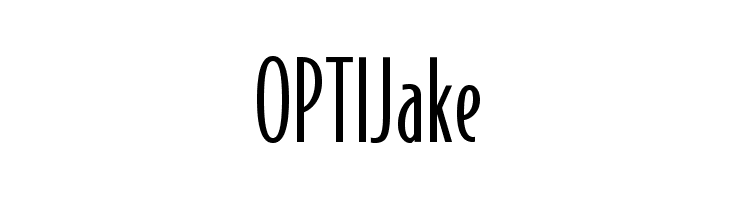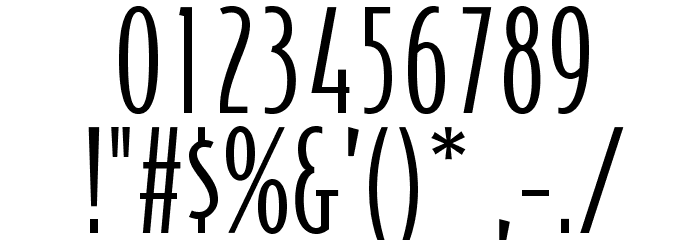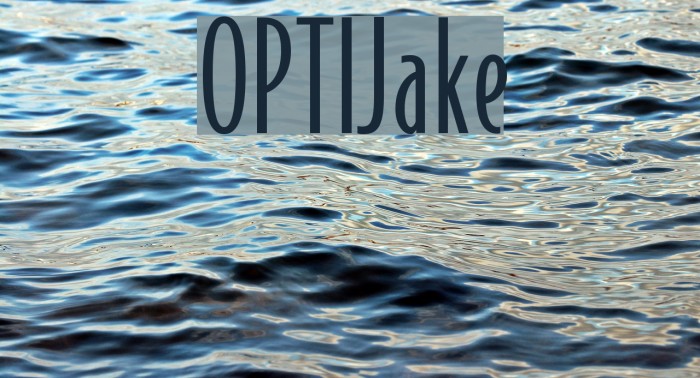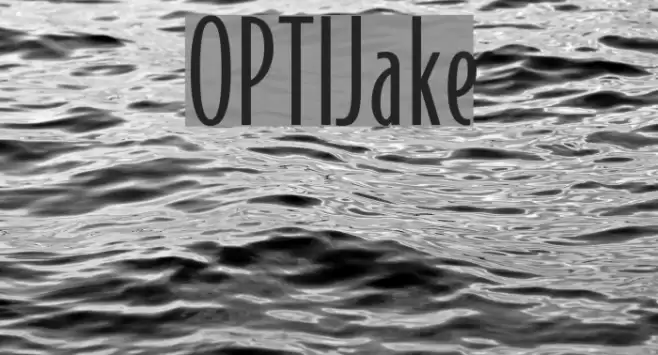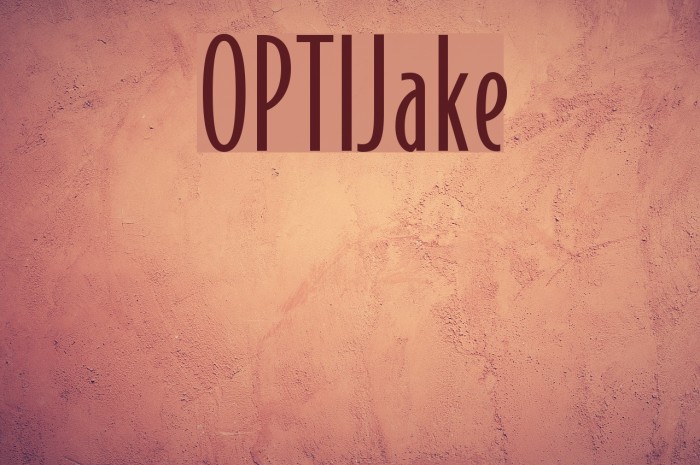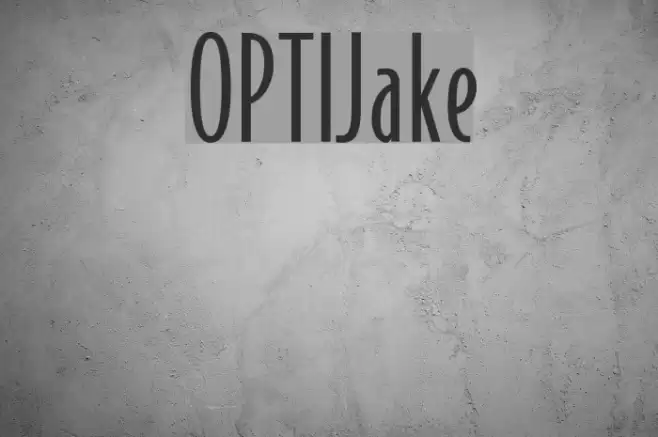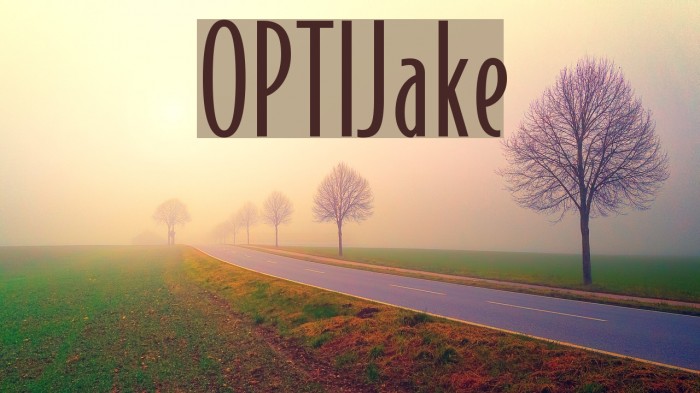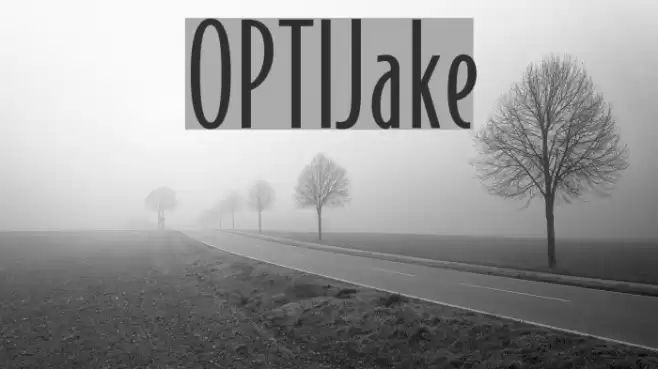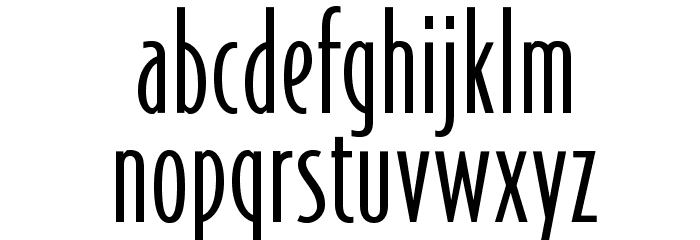
OPTIJake Font
OPTIJake Description
This font features a tall, narrow design with clean, straight lines and minimal curves, giving it a sleek and modern appearance. The uppercase letters are particularly elongated, while the lowercase letters maintain a consistent height that complements the overall vertical emphasis. The numerals are similarly styled, ensuring uniformity across all characters. The special characters are well-integrated, maintaining the same height and style as the letters and numbers. This font's design is both functional and aesthetically pleasing, making it suitable for a variety of applications.
A tall, narrow font with a sleek, modern design and consistent character height from Uncategorized fonts.
• Proposed Projects: Ideal for modern branding, editorial design, posters, and digital interfaces where a contemporary look is desired.
• Width: Condensed
• Character Spacing: Normal
• Contrast: Low
• Overall Style: Modern
• Use Case: Headlines, Logos, Posters